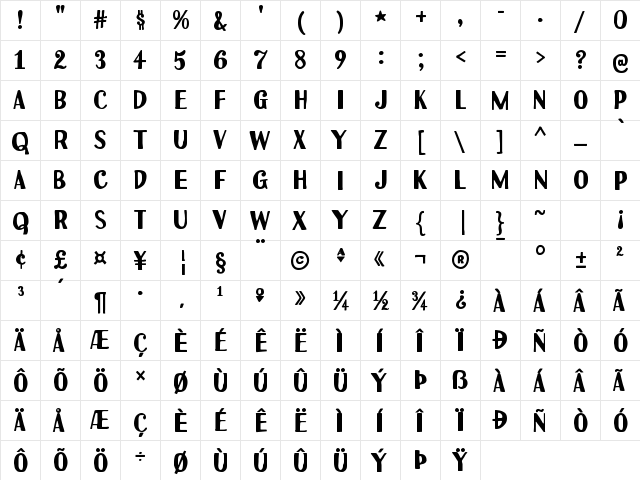
Uchiyama Regular
Design Context for Uchiyama Typeface
Uchiyama takes a measured approach to typography — its balanced proportions and neutral character make it a reliable workhorse for both digital and print work.